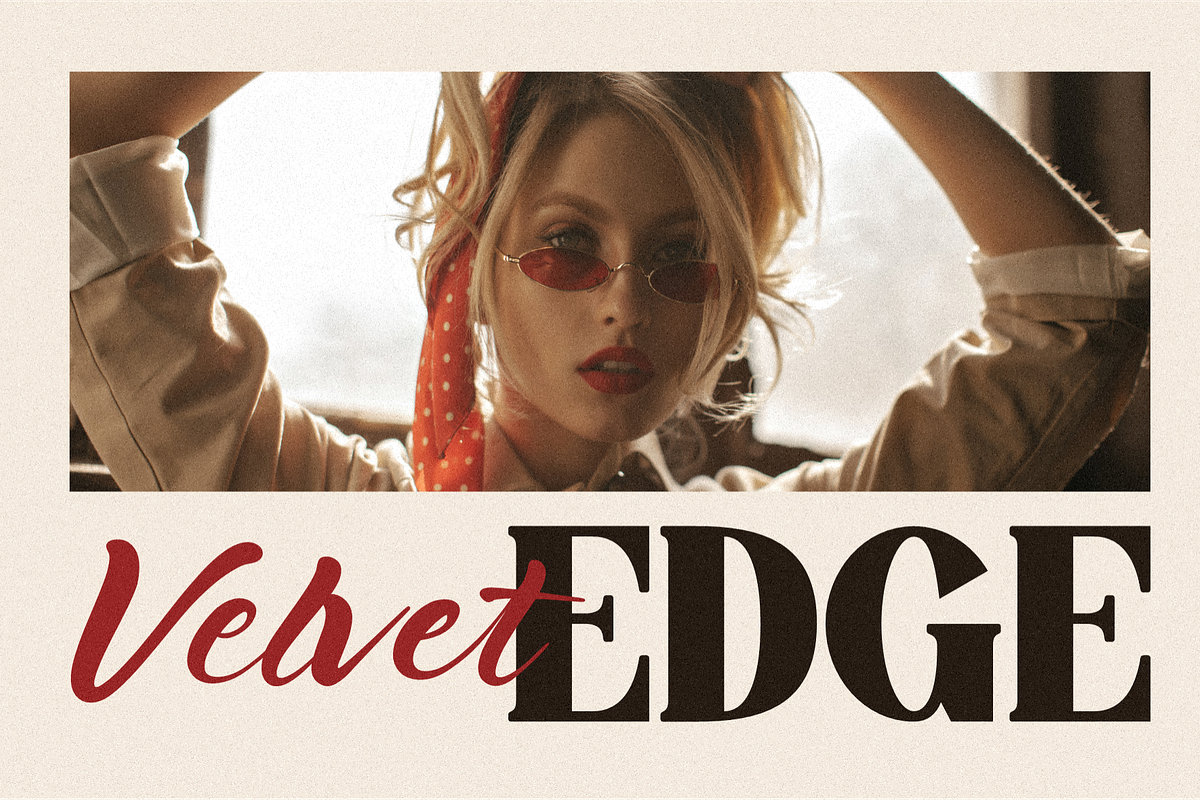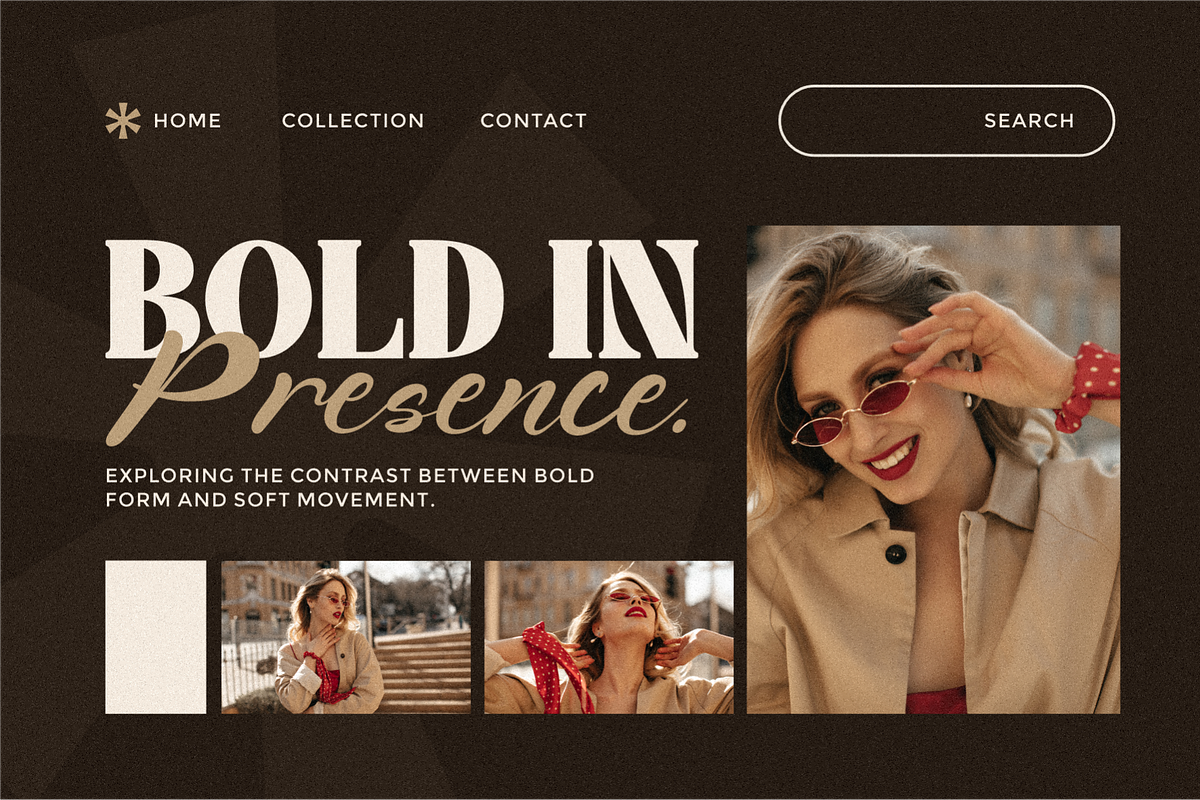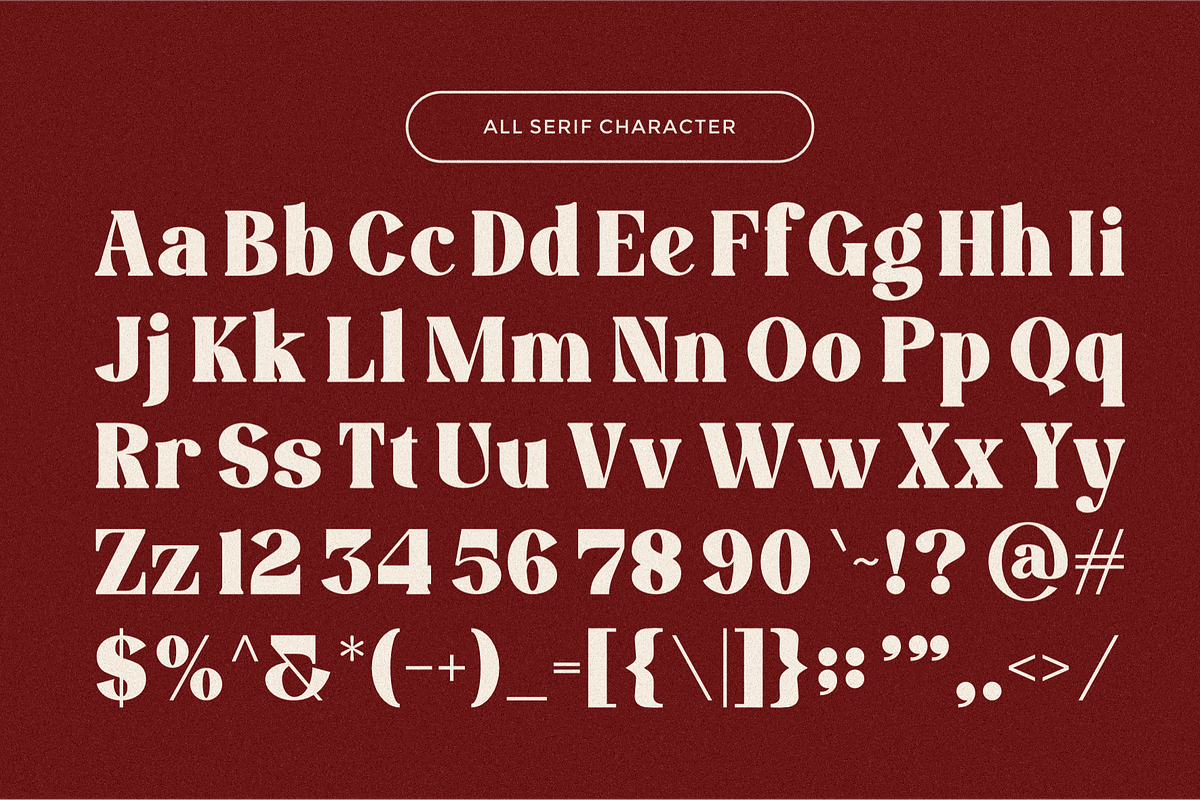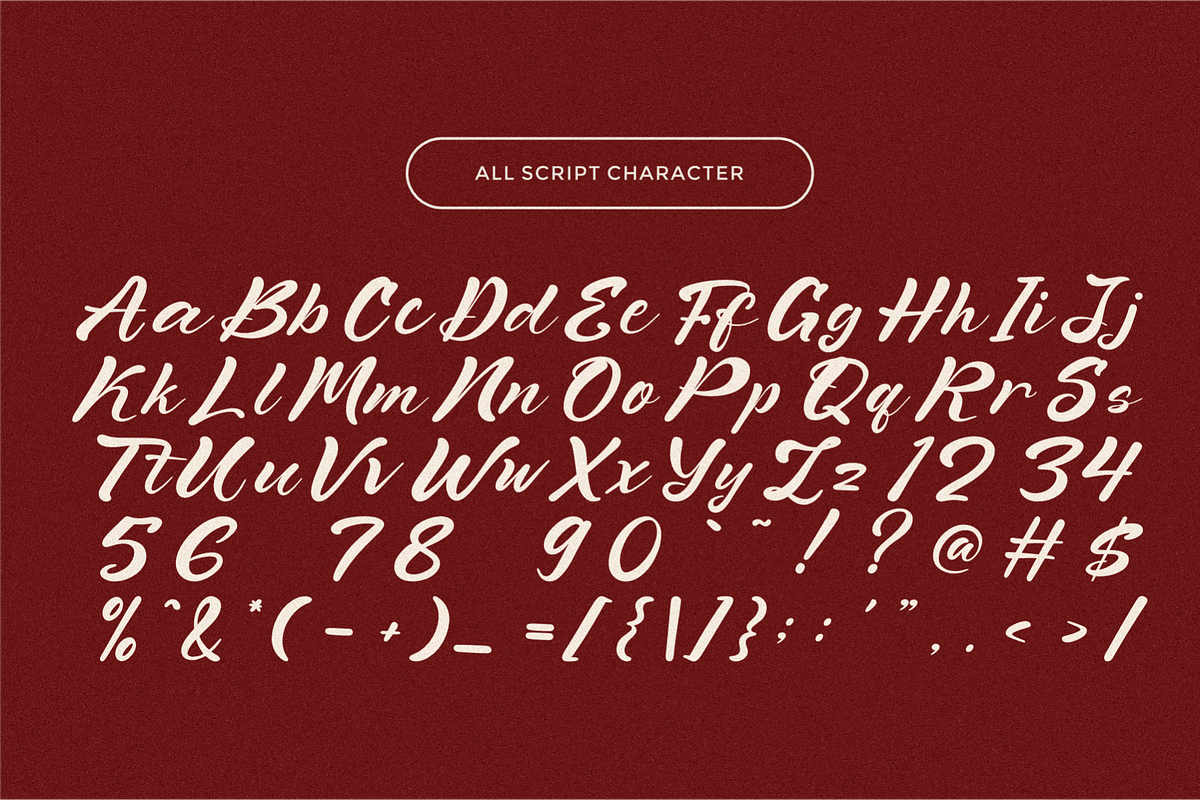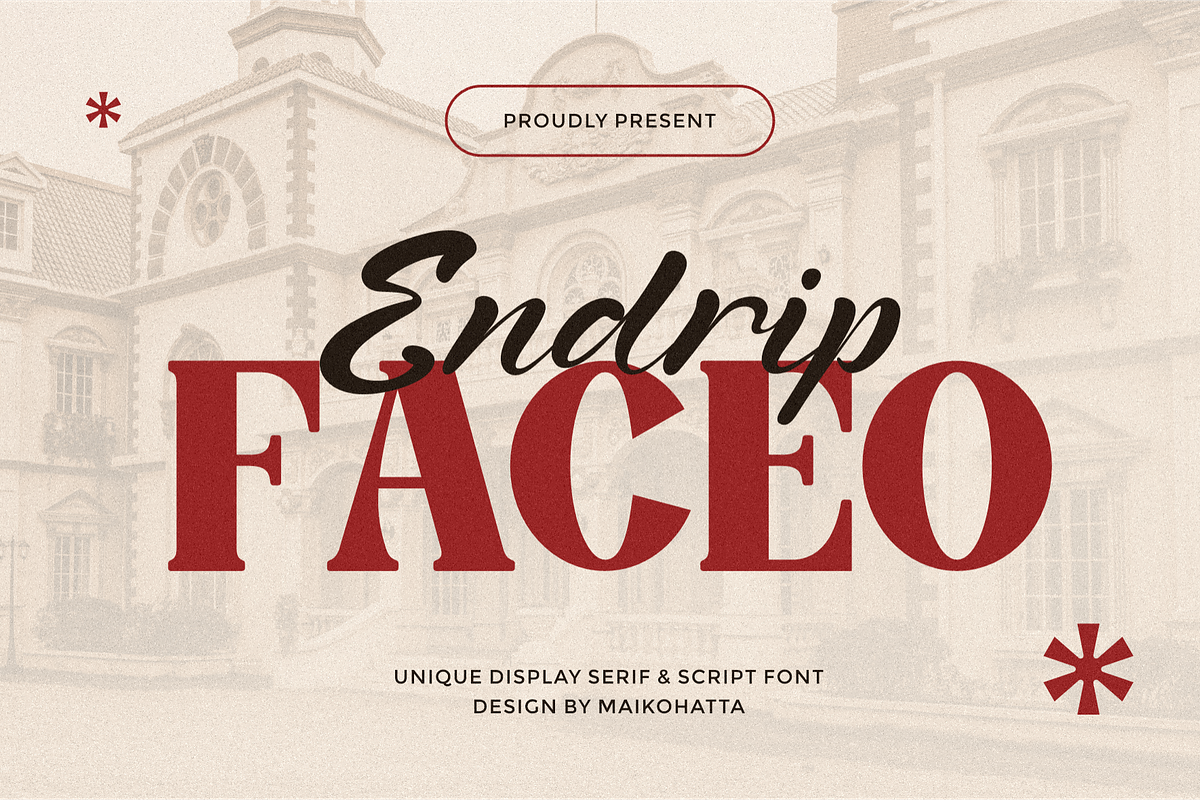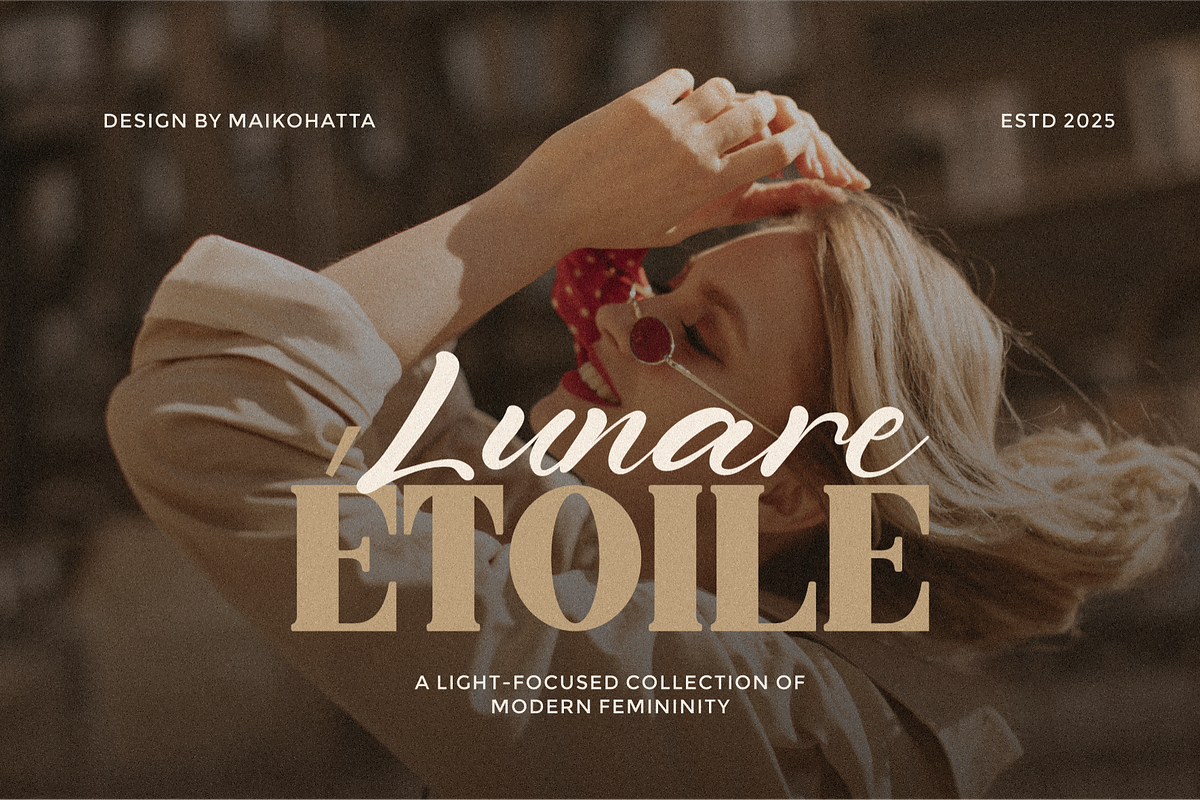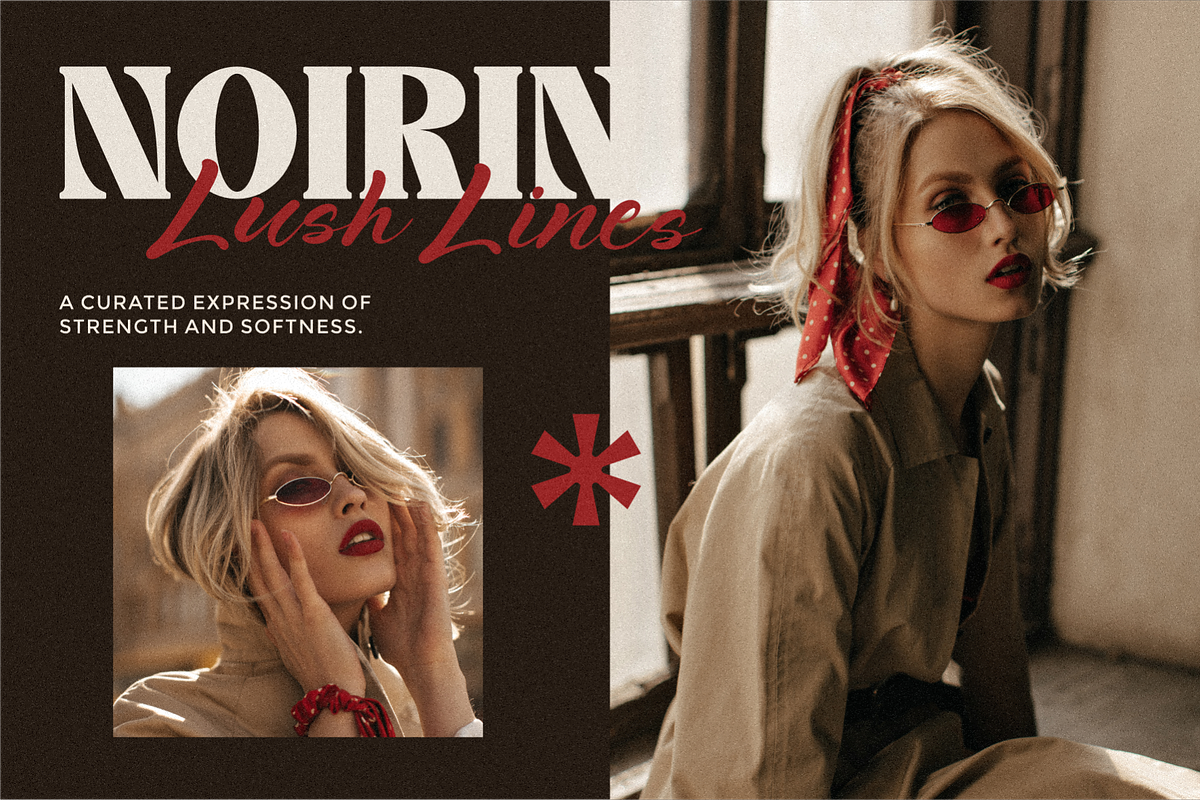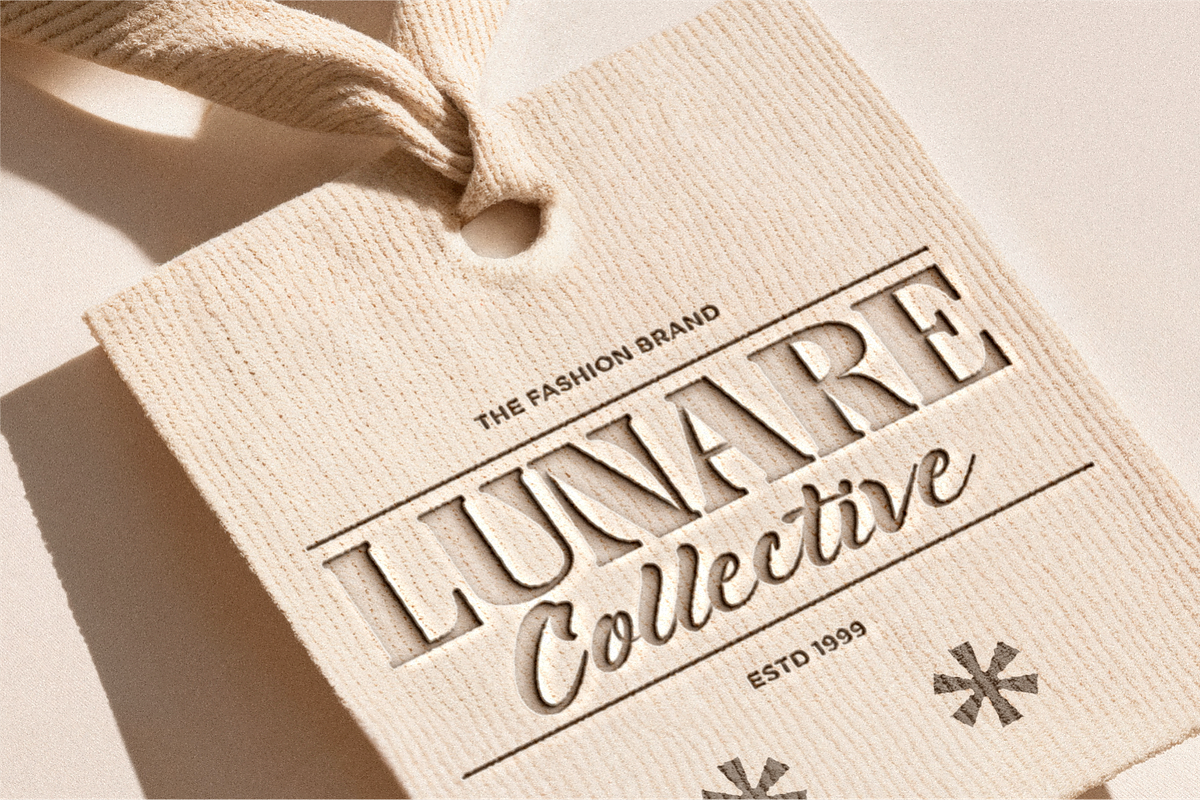
Endrip Faceo - Font Duo Typeface
Introducing Endrip Faceo, a stylish font duo that blends bold serif elegance with a smooth modern script. Designed to bring charm and versatility to any project, this font duo is perfect for branding, packaging, editorial designs, wedding invitations, and more.
Endrip – A flowing script typeface with hand-lettered charm, perfect for adding a touch of personality and warmth.
Faceo – A classic serif font with a bold, strong presence and soft rounded details, ideal for headlines and logos.
Together, they create a perfect harmony between tradition and trend, elegance and informality.